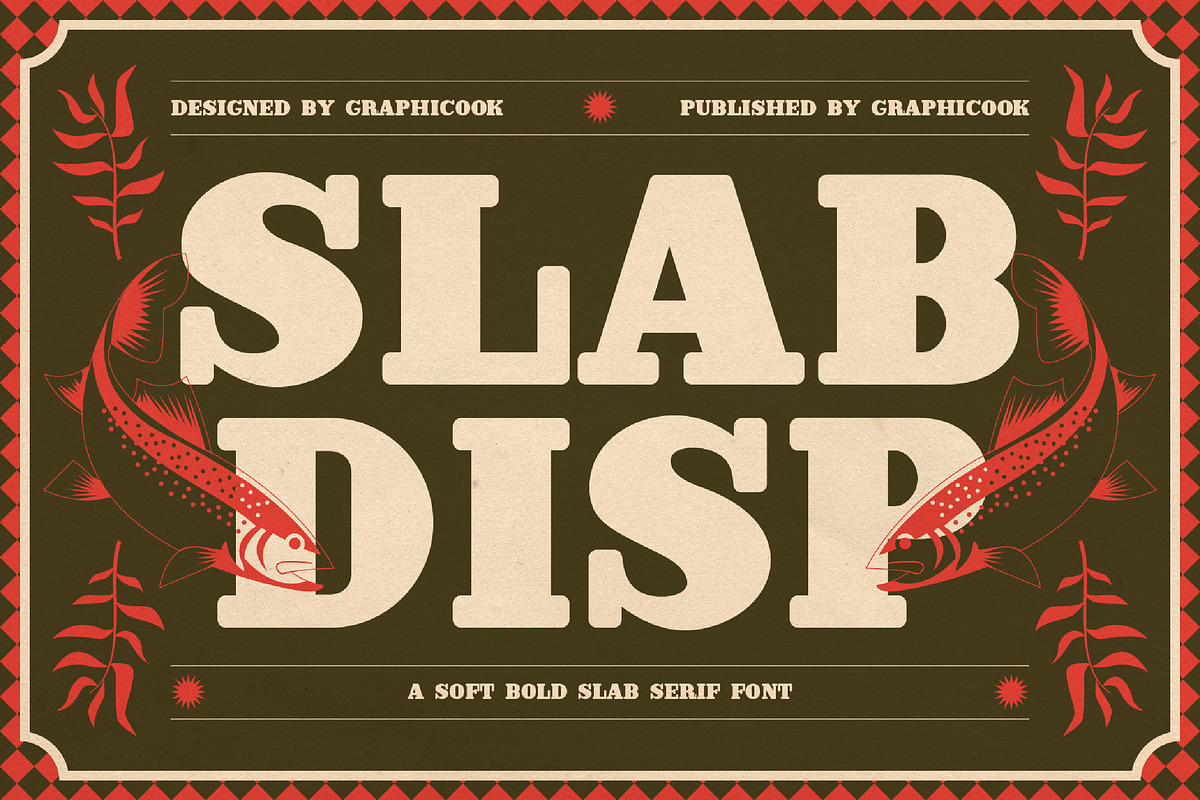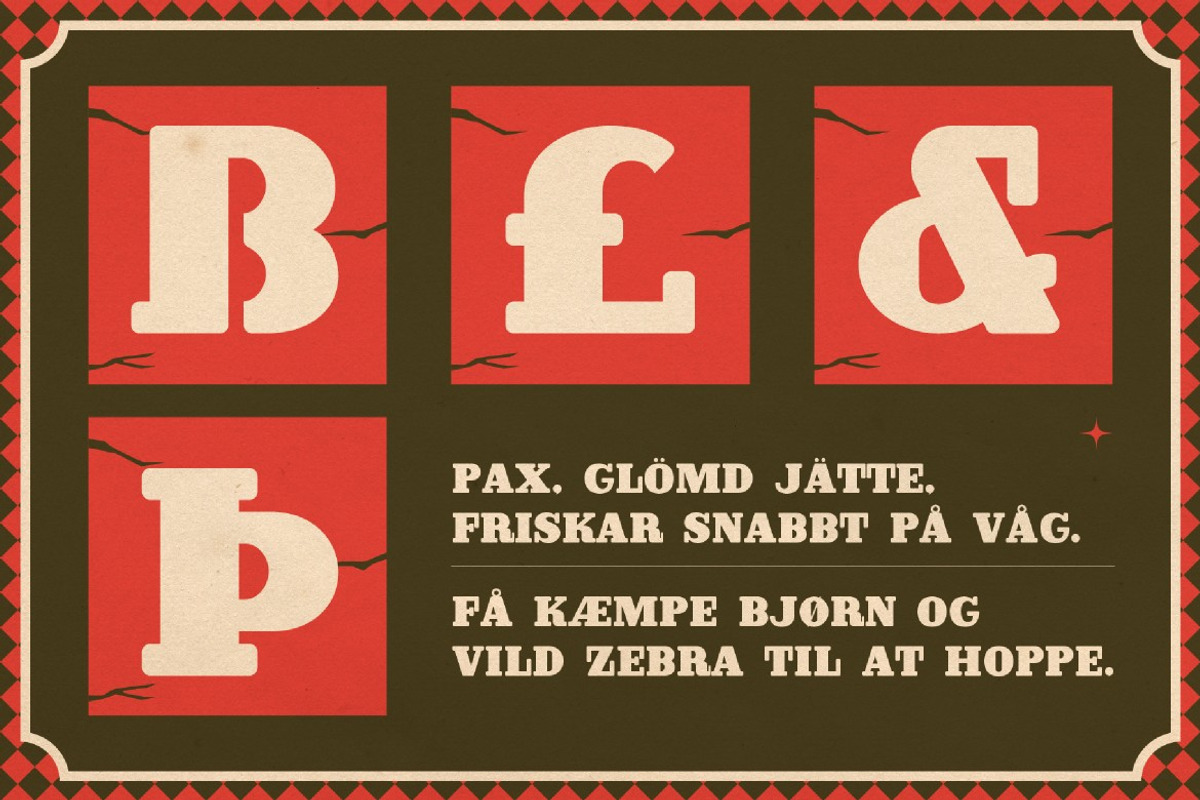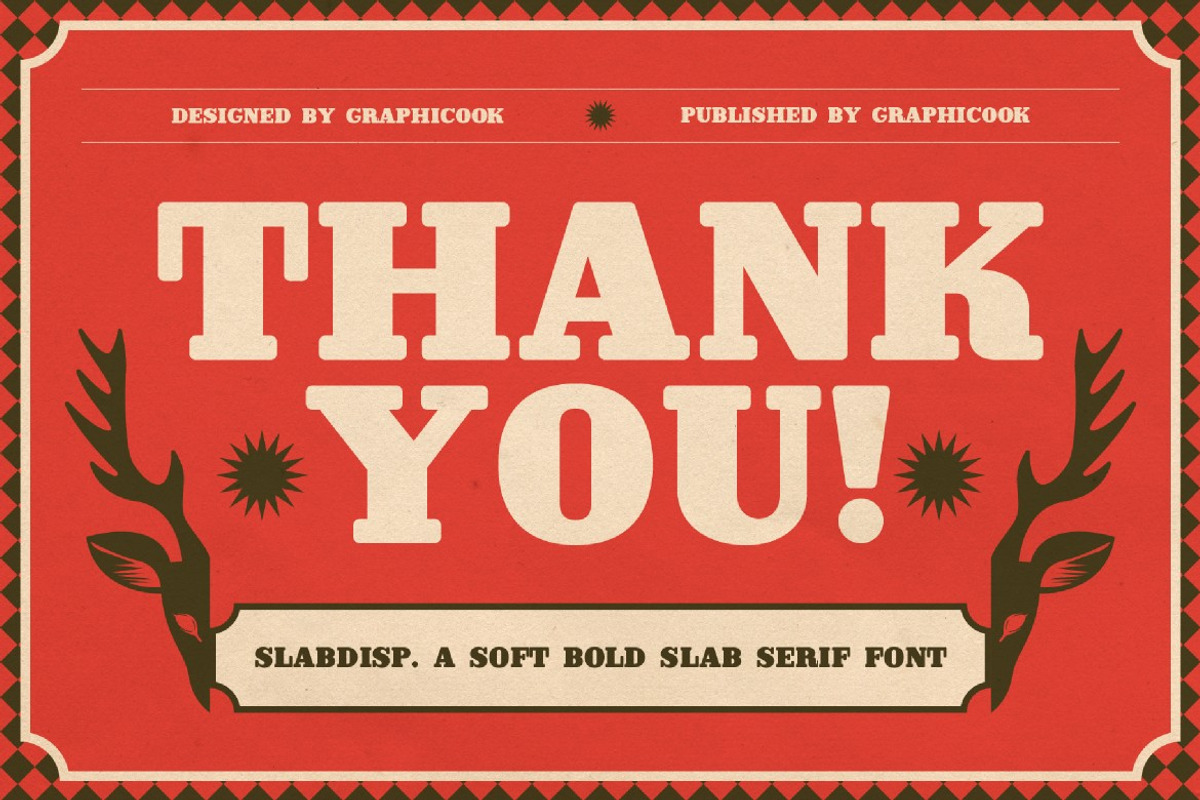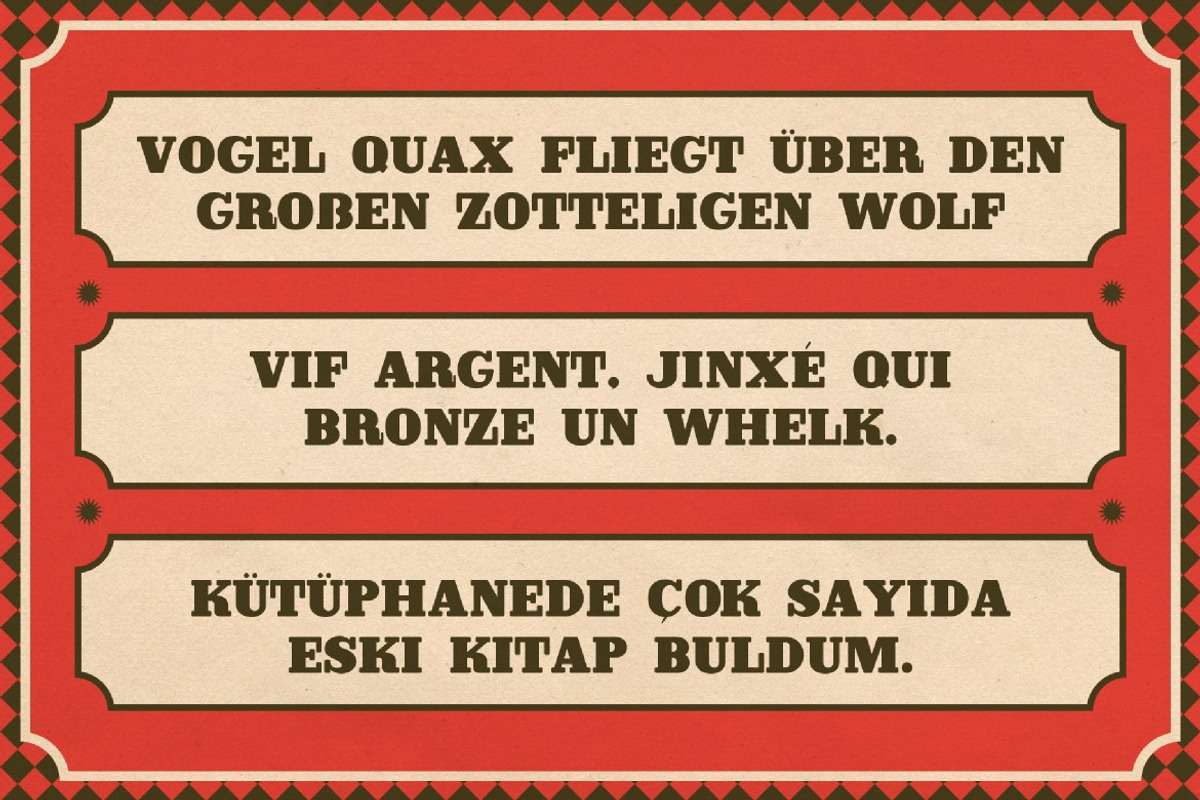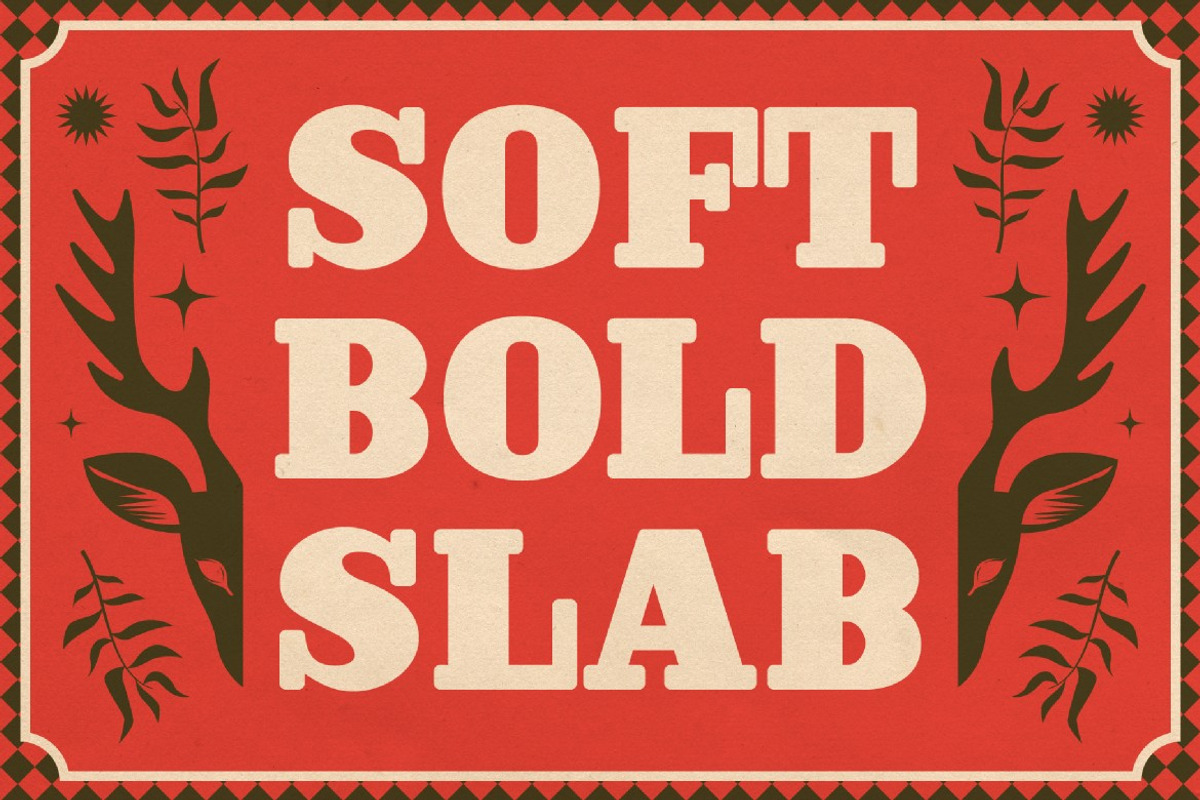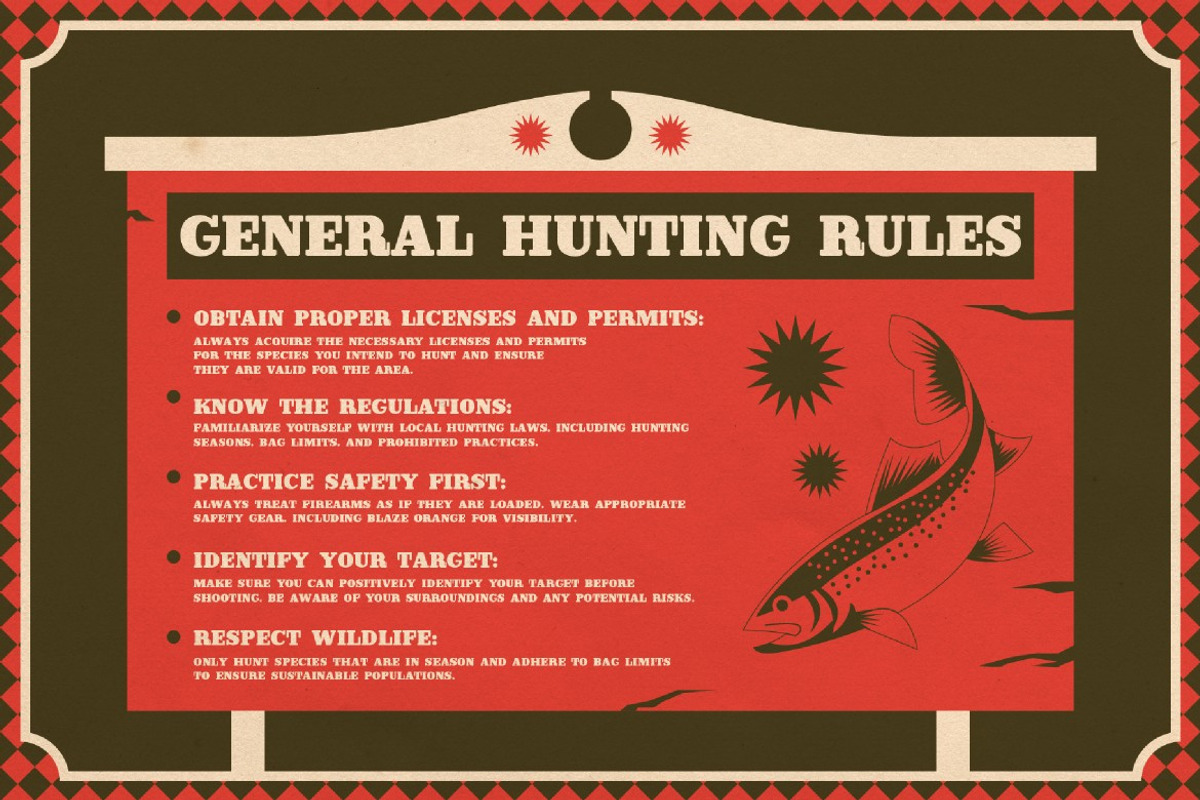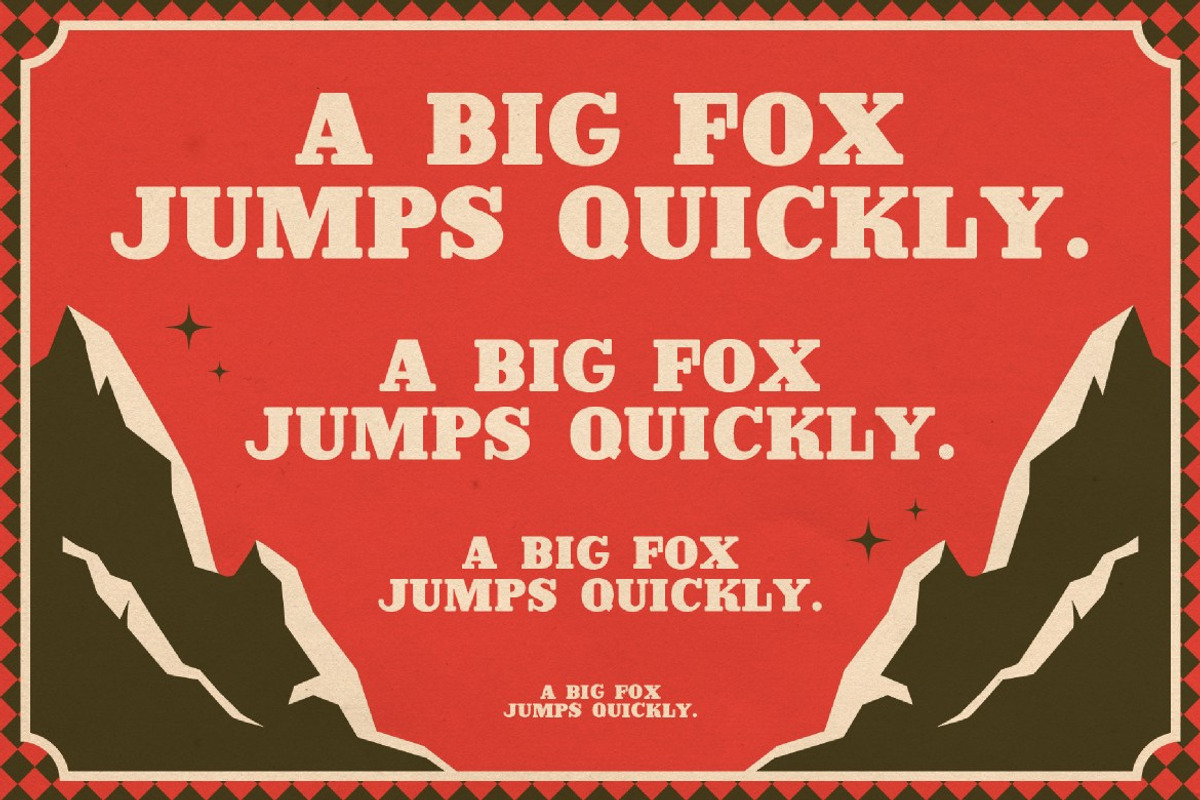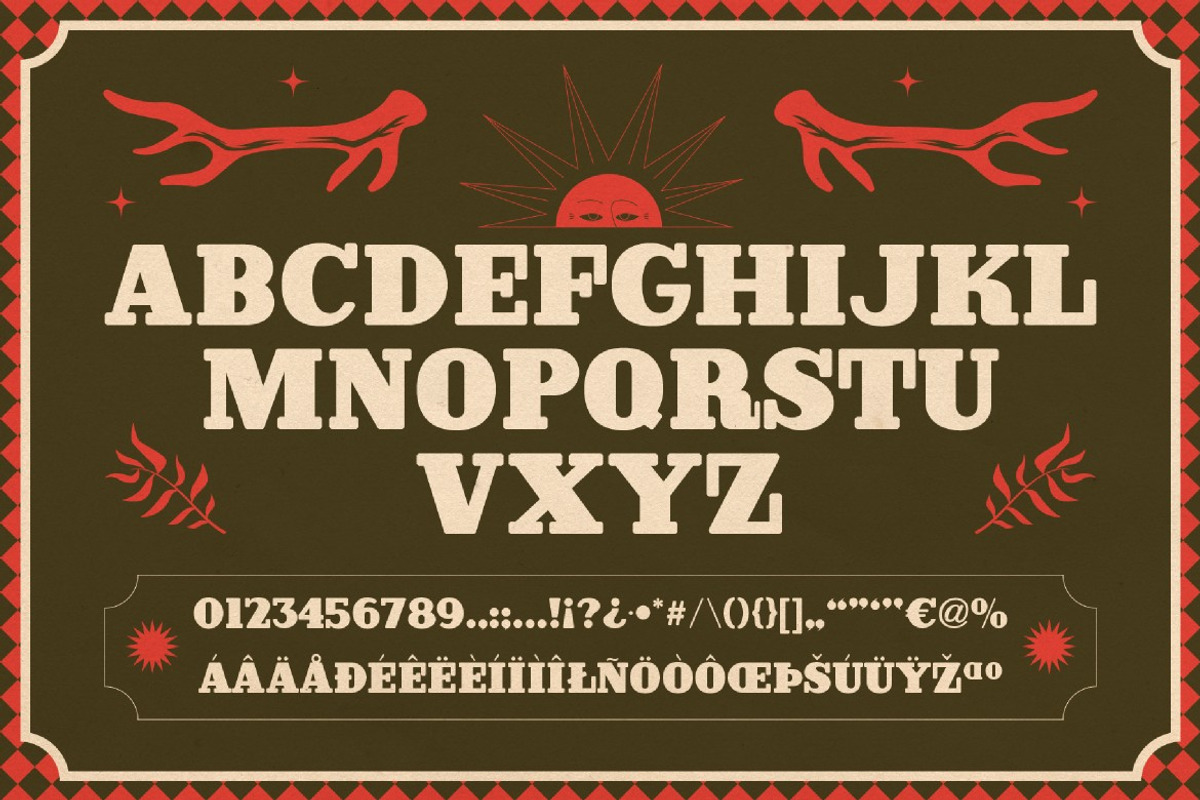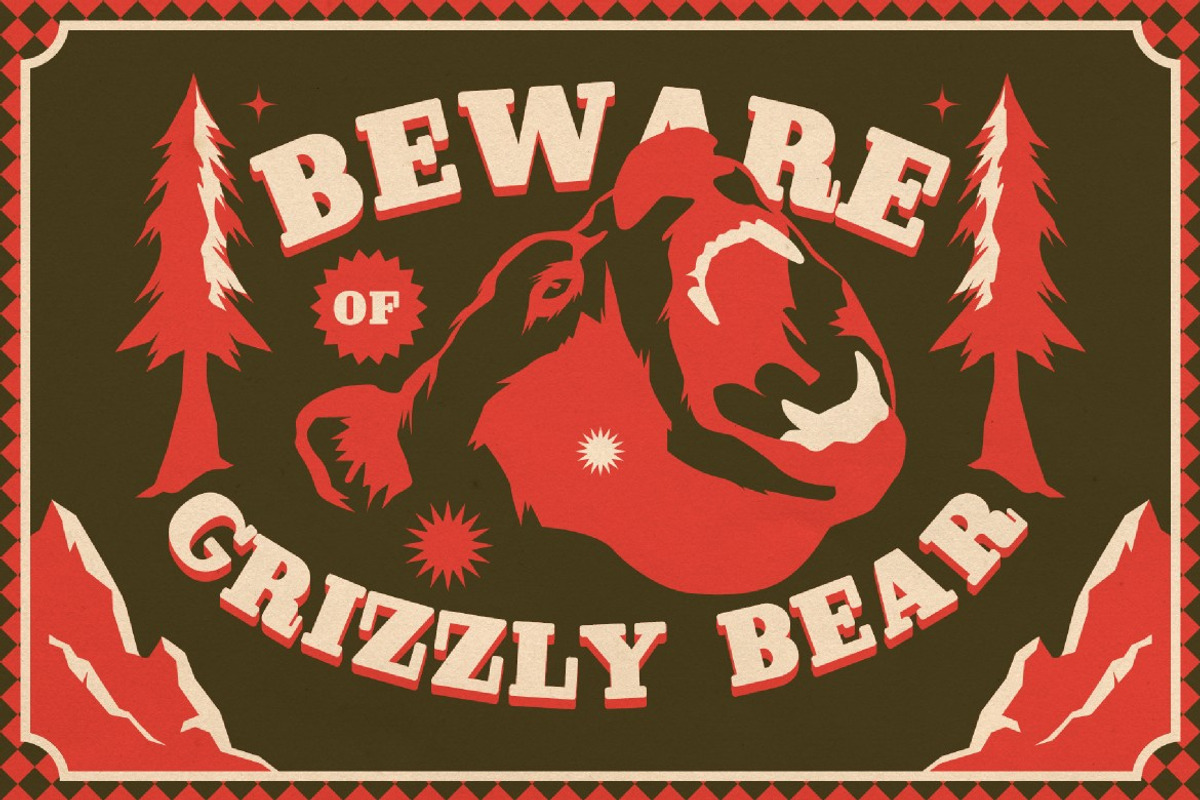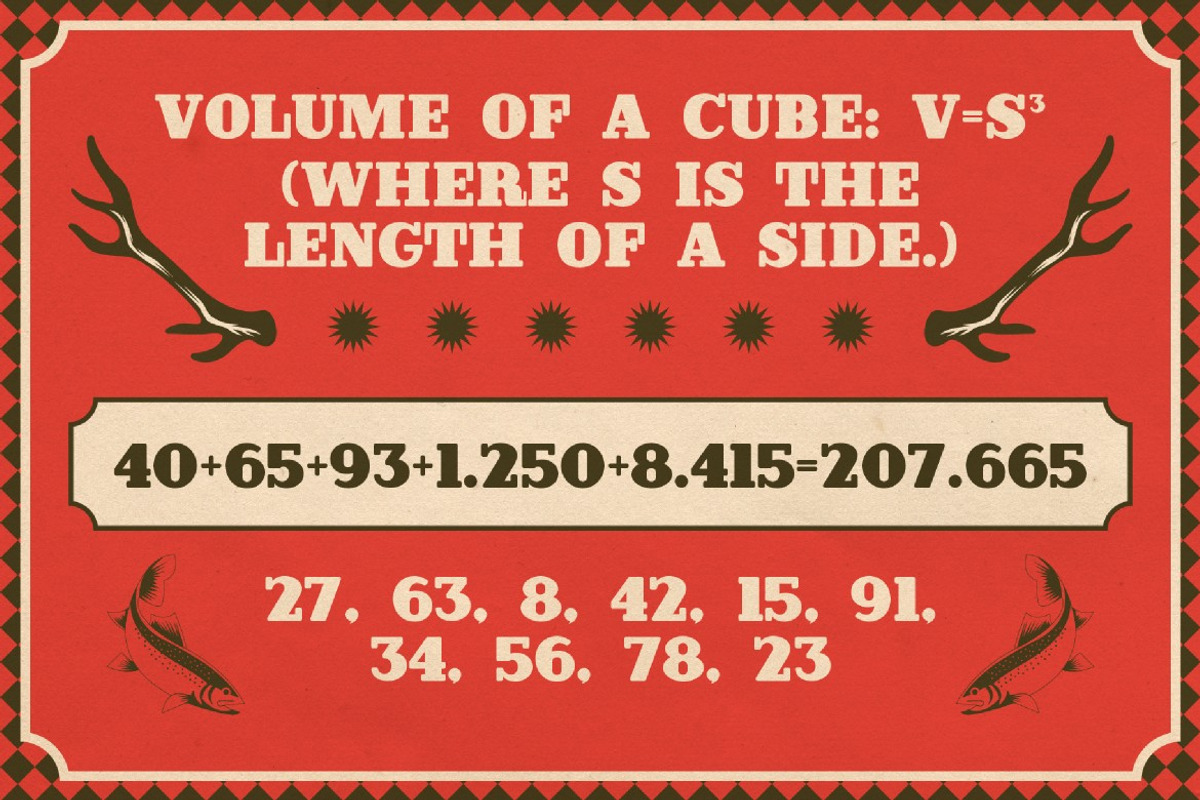
Slabdisp
Slabdisp is a slab serif font packed with an elegant vintage style. Its strong and bold appearance makes this font readable across all text applications, from headlines and subheadlines to body text.
Slabdisp is perfect for headlines, logotypes, magazines, packaging, quotes, movies, games, cover albums, book covers, and flyers, it's a perfect solution for creating eye-catching designs that stand out in any context.